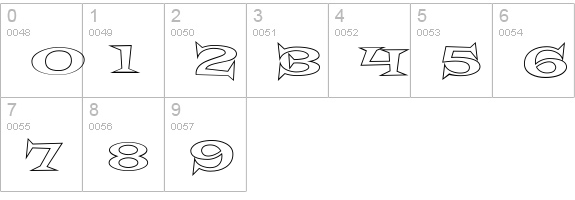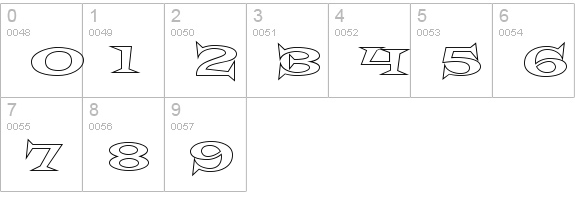
Crazy Loot BTN Outline Font Details
Crazy Loot BTN Outline font is a whimsical and playful typeface that brings a touch of fun to any design project. With its bold outlines and unique style, this font is perfect for creating eye-catching headlines, posters, and more. Whether you're working on a party invitation or a children's book cover, Crazy Loot BTN Outline font will add a touch of creativity to your work. Best of all, Crazy Loot BTN Outline font is available for free download at FontsMarket.com. This means you can easily add this font to your collection without breaking the bank. So why wait? Download Crazy Loot BTN Outline font today and let your creativity run wild!